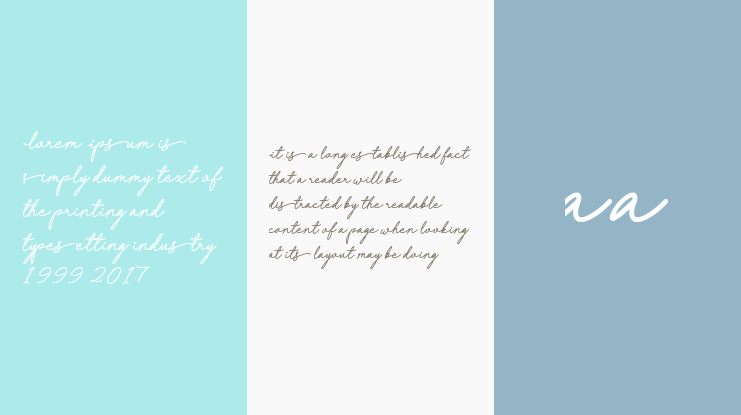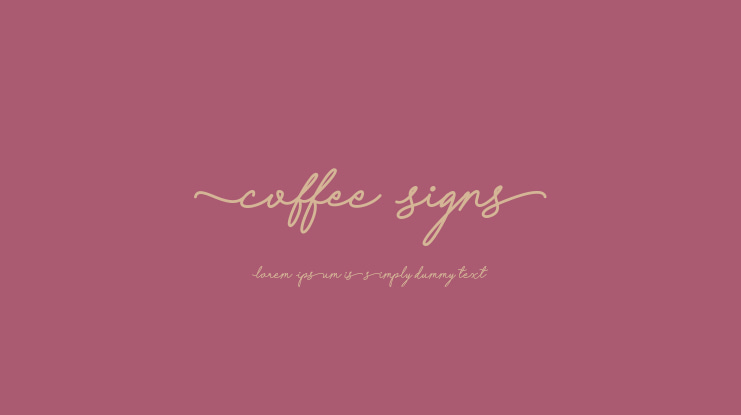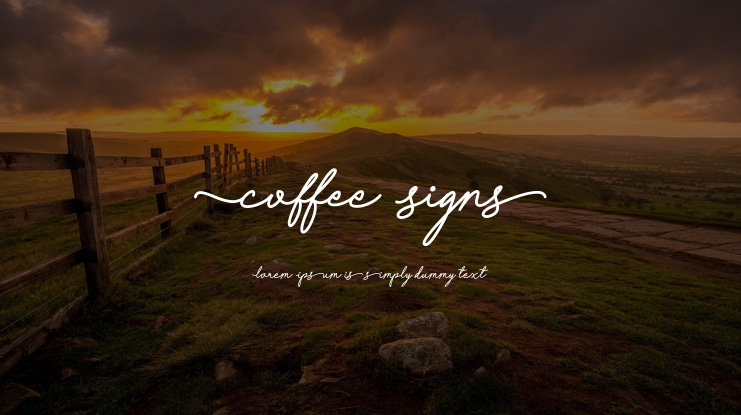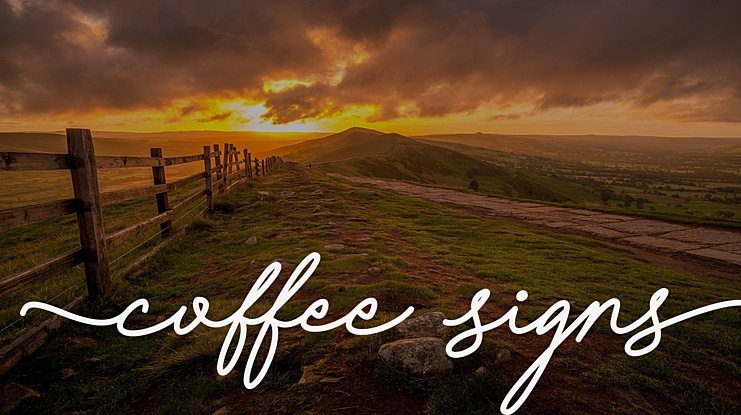
Coffee Signs Font
Coffee Signs is a handwritten monoline font with a coffee theme that is truly extraordinary. A new font looks with a relaxed feel in handwriting, maintaining a classy and fresh casual style. Perfect for all your creative projects this season.
I created the Coffee Signs font in a unique and very easy way to get curly swash & ligature. Hopefully, that way can help and speed up your time.
I use the ligature feature to make curly swashes in front of letters and behind letters in words. You can access it by using double-asterisk (**) characters that are typed before the letters or after the letters to get a swash display.
For example, in the letters c & s, type **c for front swash or s** for back swash.